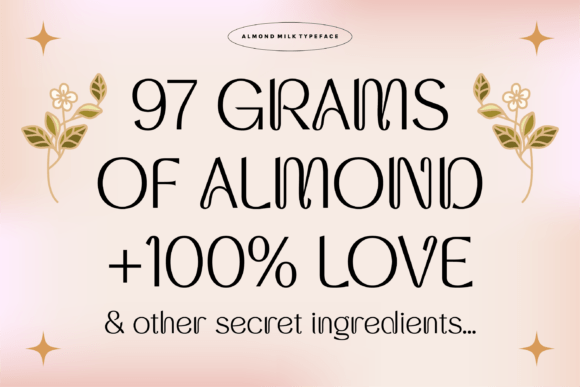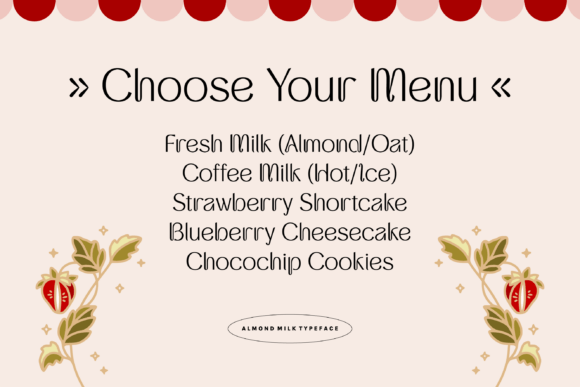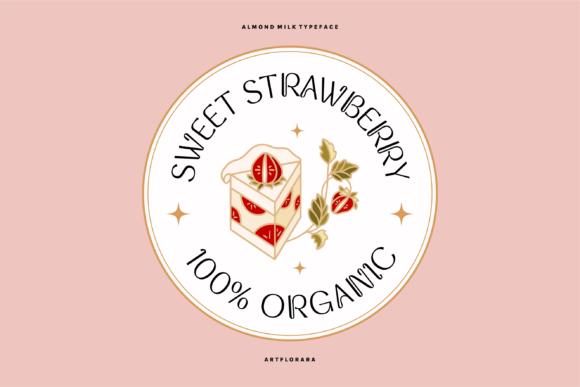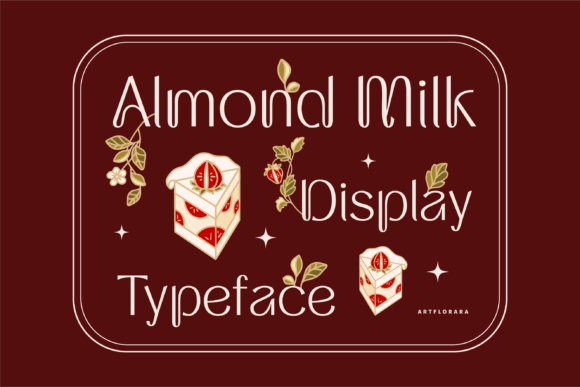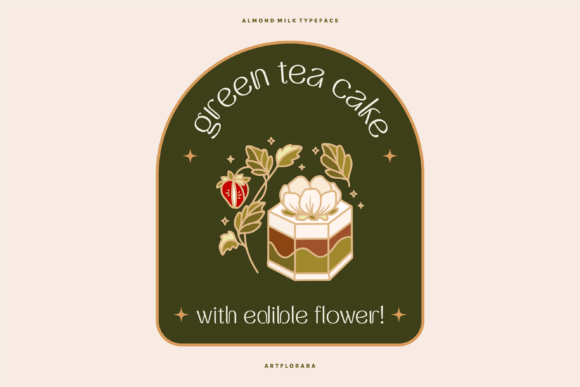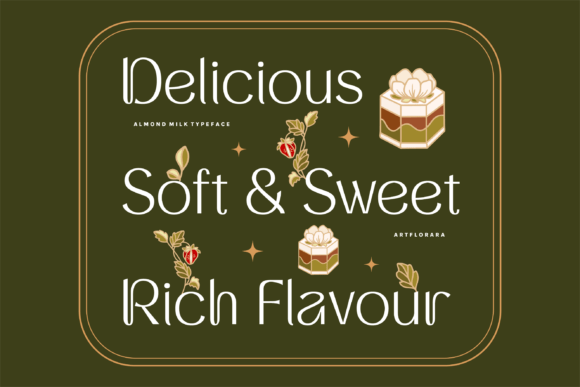
The Quest for the Perfect Font: Introducing Almond Milk
I’ll never forget the design project that led me to discover Almond Milk font. I was working on a branding project for a trendy new cafe, and I just couldn’t find the right font to capture their playful yet sophisticated vibe. The client wanted something modern, yet friendly and approachable. I spent hours scouring font libraries and design blogs, but nothing seemed quite right. That was until I stumbled upon Almond Milk font. 💡
First Impressions: A Dynamic Display Font
Almond Milk font is a dynamic display sans serif font that embodies the essence of joy and creativity. Its medium contrast stroke weight offers a versatile aesthetic that combines the best of modern design with a friendly, open feel. This playful and spirited typeface can add a sense of fun to any project, yet maintains a refined and sleek look that stands the test of time.
Here’s what I love about Almond Milk font:
• ✨ Unique personality: Almond Milk font has a distinct character that sets it apart from other sans serif fonts.
• ✅ Versatility: Its medium contrast stroke weight makes it suitable for a wide range of design projects, from branding and advertising to packaging and digital media.
• 💡 OpenType features: Almond Milk font supports OpenType features, including stylistic alternates and glyphs, which offer endless creative possibilities.
And here are a few small quirks to keep in mind:
• 🤔 Limited use in body text: While Almond Milk font is perfect for headlines and titles, it may not be the best choice for body text due to its display nature.
• ⚠️ Kerning issues: As with any font, kerning issues may arise when using Almond Milk font in certain combinations. Be sure to adjust as needed.
The Story Behind Almond Milk Font
Almond Milk font was designed with the goal of creating a unique and playful display font that captures the essence of joy and creativity. Inspired by the world of art and design, the font’s creator aimed to craft a typeface that is both modern and approachable. With its medium contrast stroke weight and OpenType features, Almond Milk font is perfect for designers looking to add a touch of personality to their projects.
What is Almond Milk font best suited for? Almond Milk font is best suited for display purposes, such as headlines, titles, and branding projects.
Does Almond Milk font support OpenType features? Yes, Almond Milk font supports OpenType features, including stylistic alternates and glyphs.